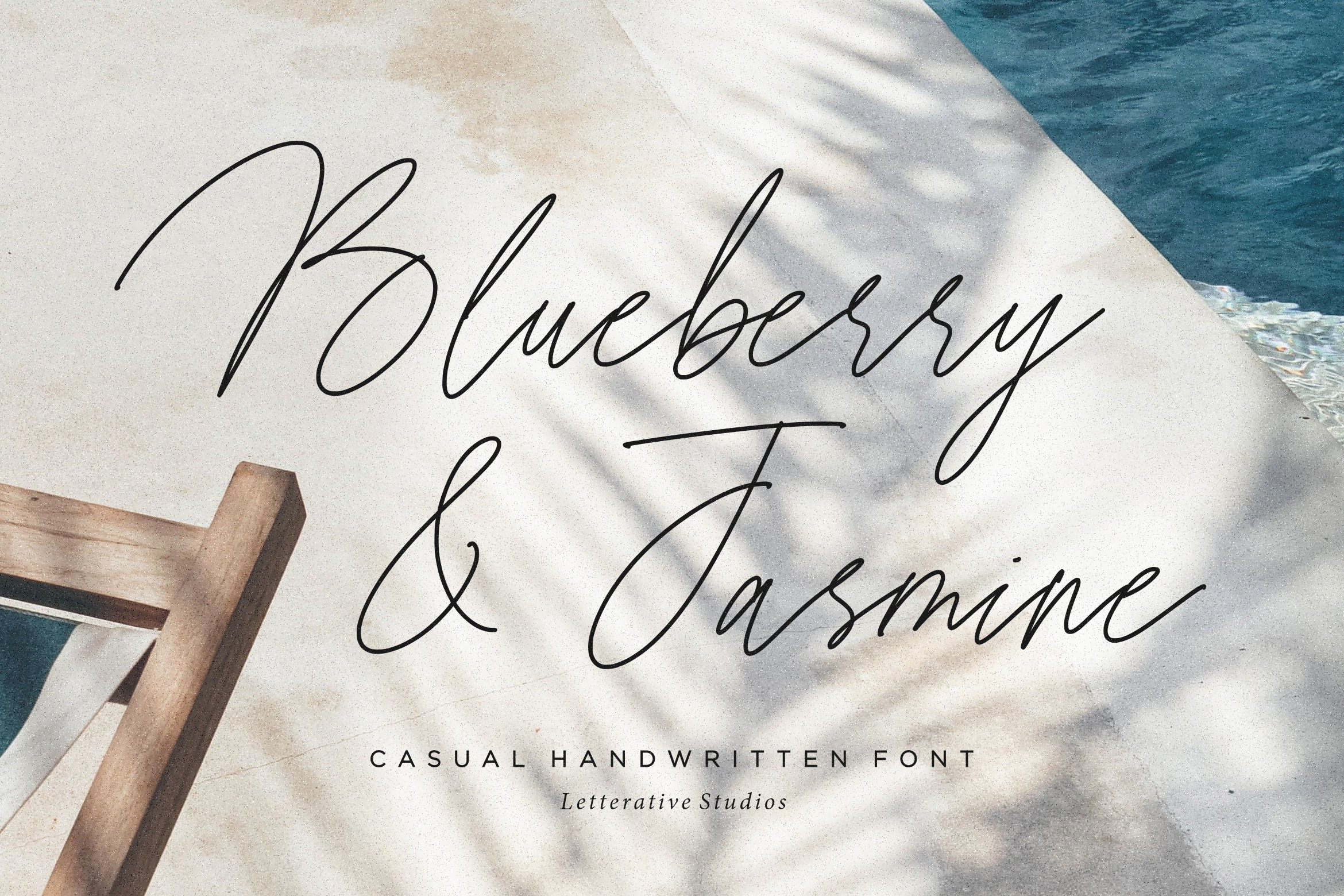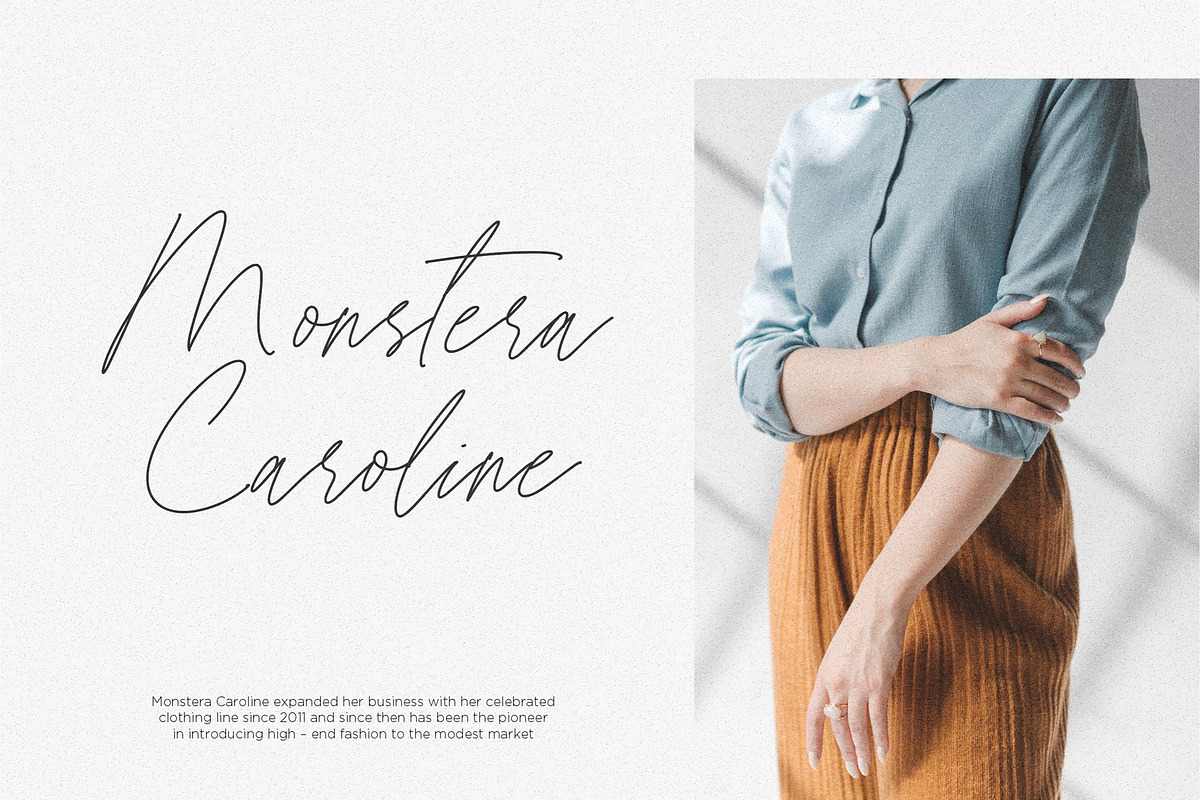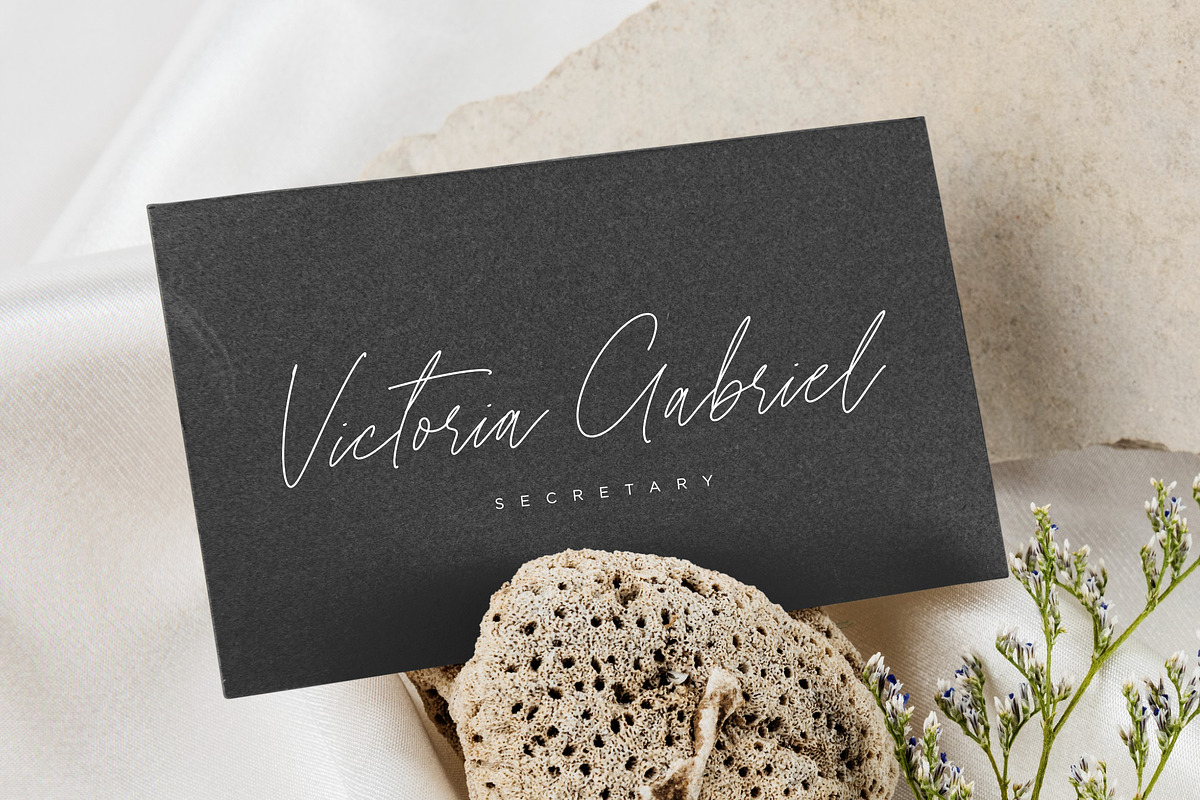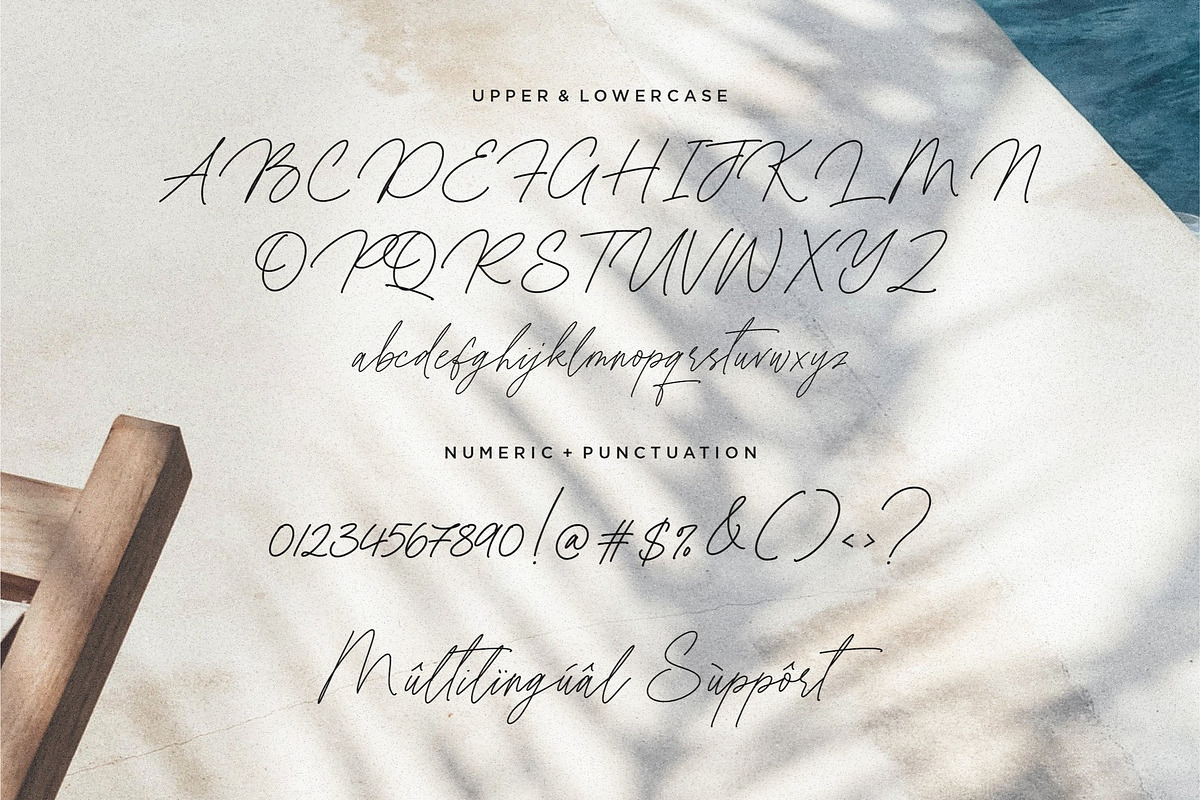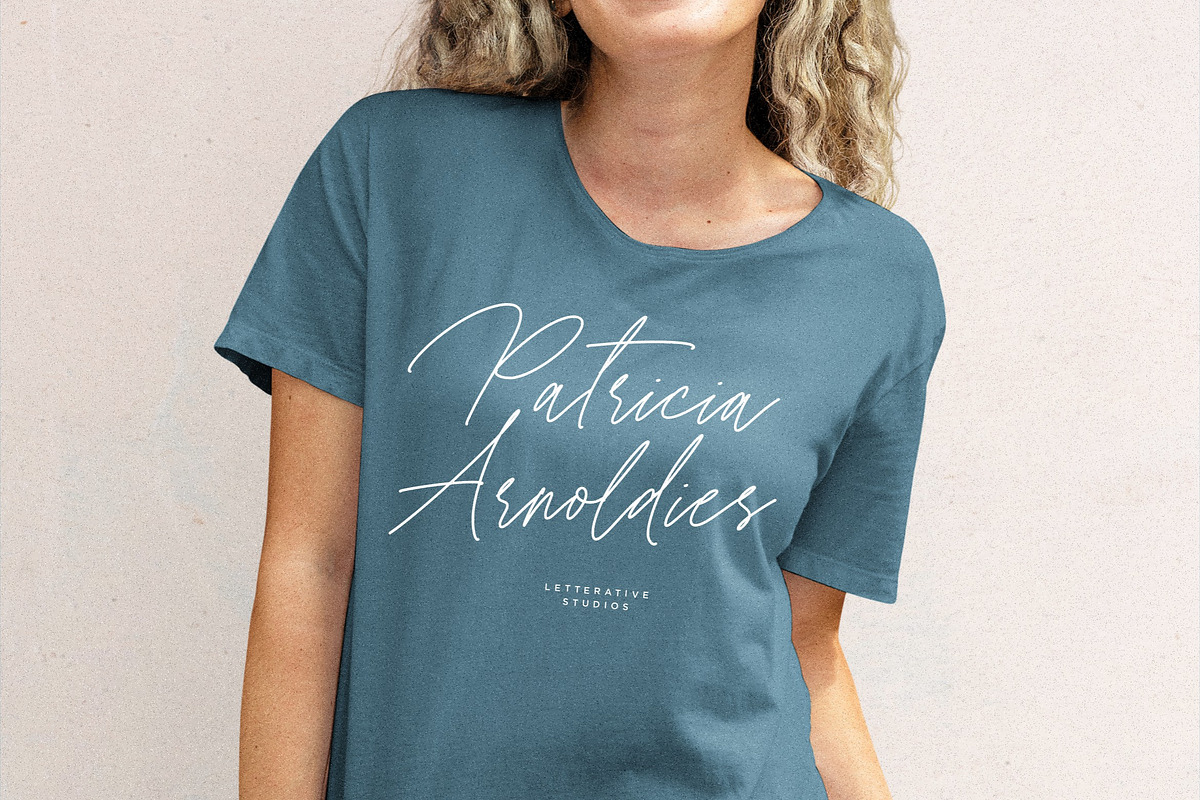
Blueberry & Jasmine - Casual Font
Introducing by Letterative Studio : Blueberry & Jasmine Font
Blueberry & Jasmine is a Casual Handwritten Font
Blueberry & Jasmine is a modern, monoline handwritten script font. Whether you’re using it for crafts, digital design, presentations, or making greeting cards, this font has the potential to become your favorite go-to font, no matter the occasion!
Blueberry & Jasmine also multilingual support